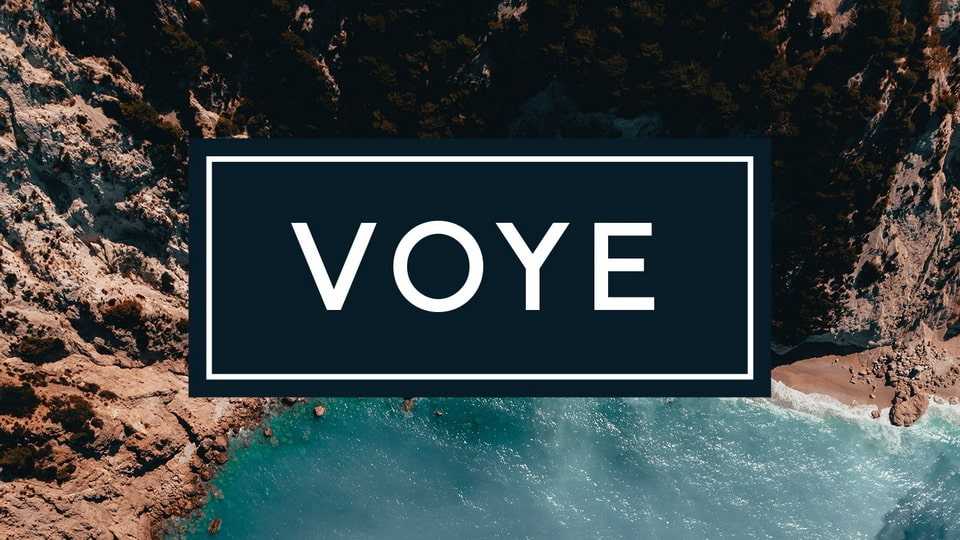
Download Voye font, a sans serif typeface, drawing inspiration from simplicity and geometric grotesques. Voye font is well-suited for headlines, display text and small paragraphs.
Designer: Eleftherios Georgiadis